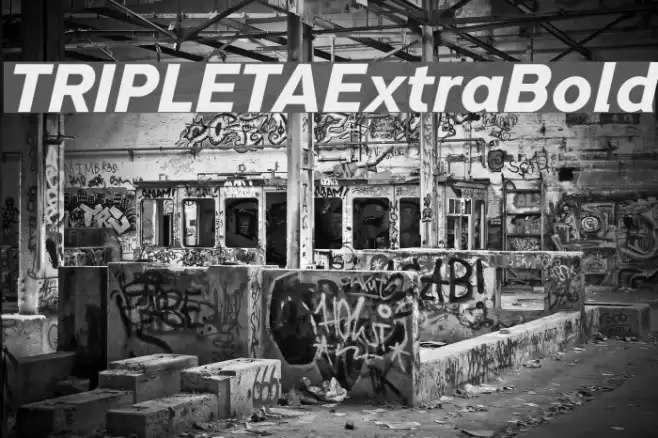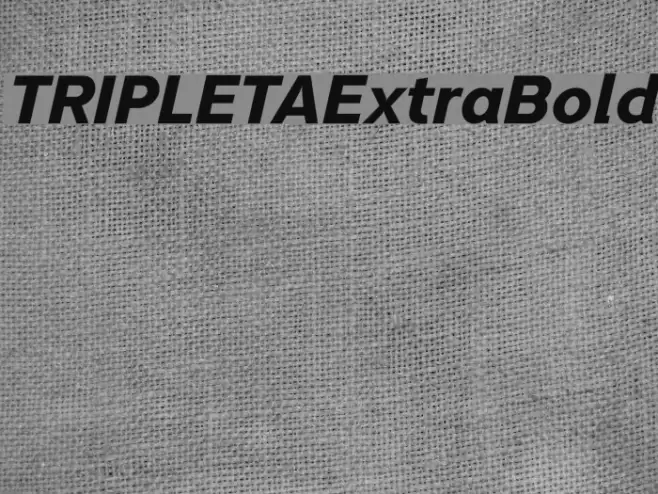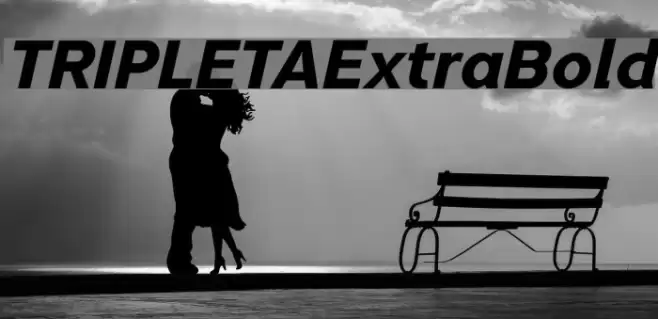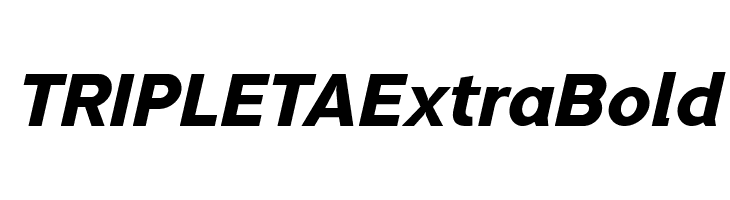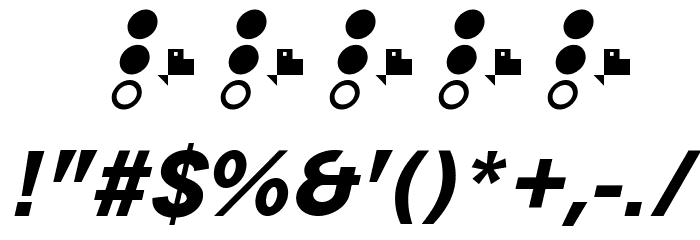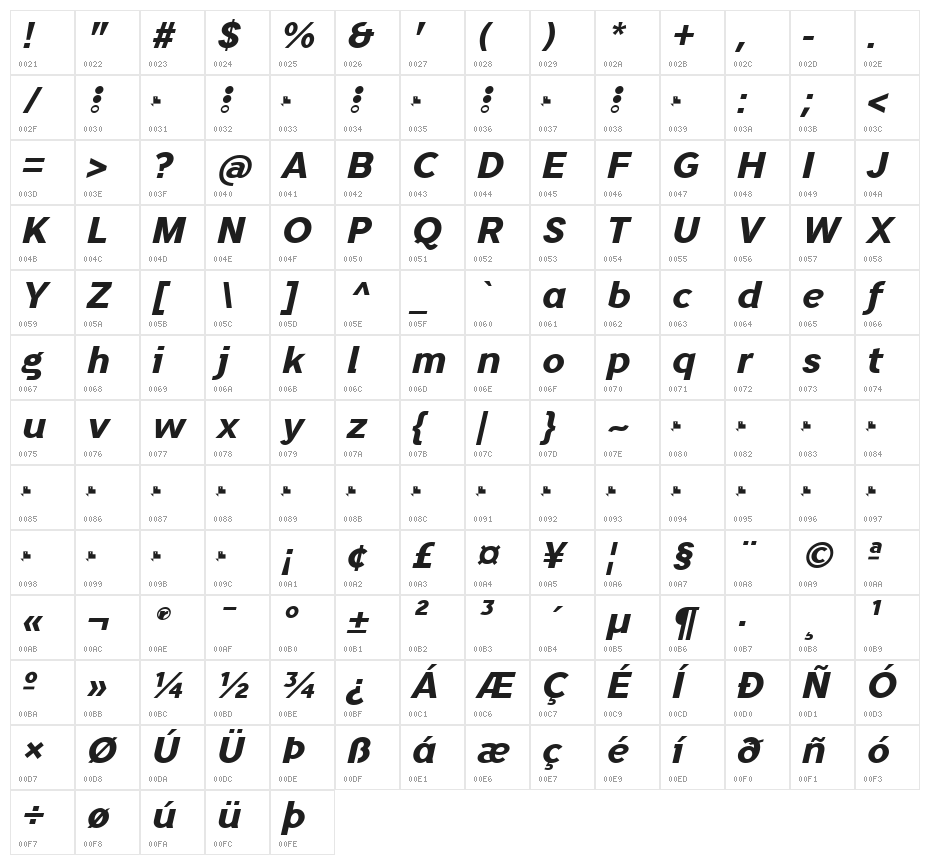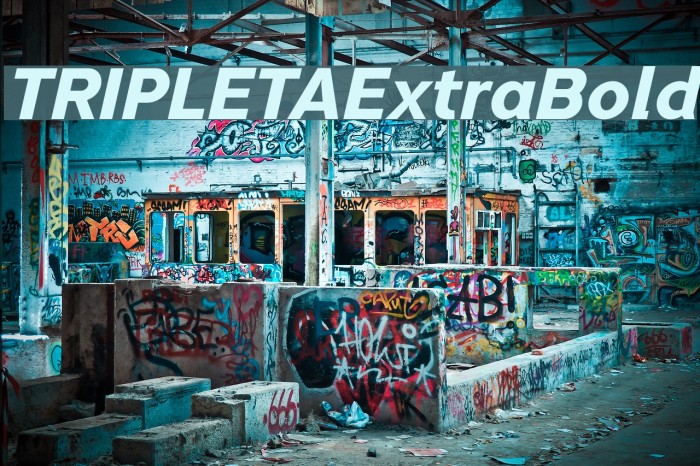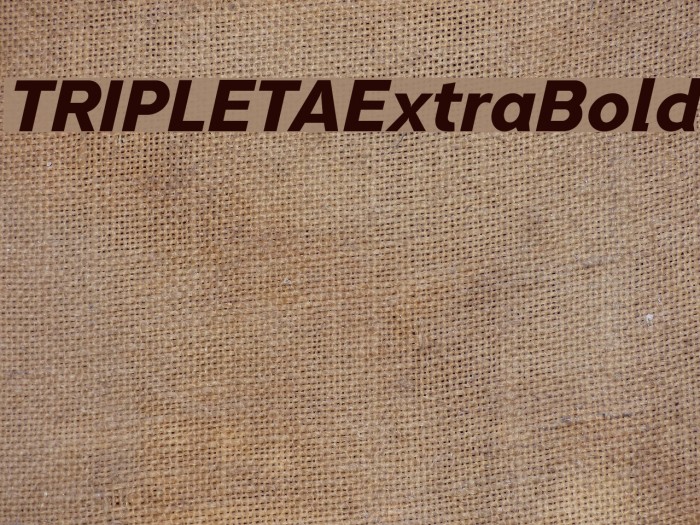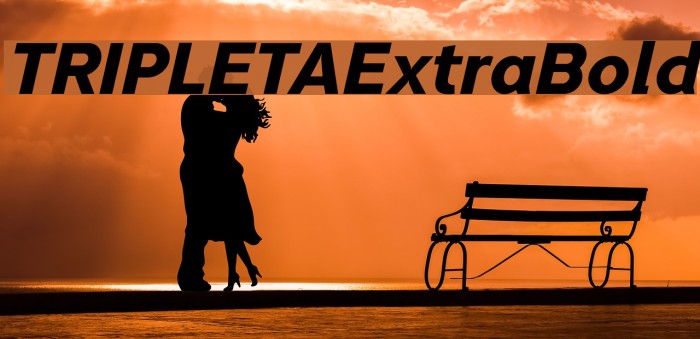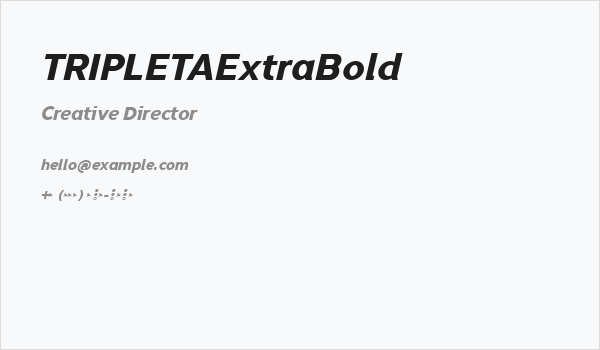
TRIPLETAExtraBold Font
TRIPLETAExtraBold Description
This font exhibits a bold and dynamic presence, characterized by its extra bold weight and slightly italicized style. The characters are well-defined with a modern aesthetic, featuring clean lines and smooth curves. The uppercase letters are uniform and strong, while the lowercase letters maintain a consistent flow, enhancing readability. The numerals are distinct and align well with the overall style, making them suitable for various applications. Special characters are crafted with precision, adding to the font's versatility. This typeface is ideal for making a statement in any design project.
A bold, slightly italicized font with a modern and dynamic style from Uncategorized fonts.
- Proposed Projects: Ideal for branding, advertising, headlines, and any project requiring a strong visual impact.
- Use Case: Headlines, Logos, Branding